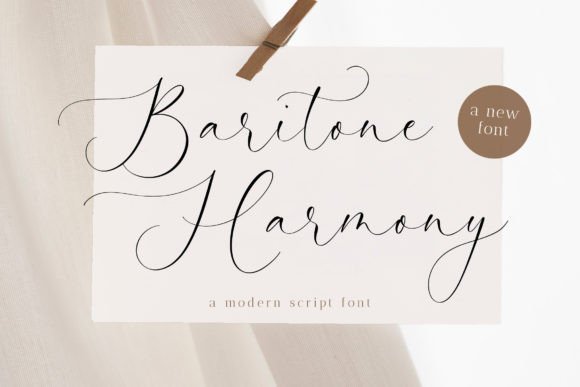
Introducing Baritone Harmony Font: Elevate Your Design with Elegance
Are you on the lookout for a font that exudes sophistication, elegance, and a touch of modernity? Look no further than the Baritone Harmony Font. This exquisite handwritten font is designed to capture the essence of classy calligraphic influences while maintaining a fresh and contemporary feel. In this article, we’ll dive deep into the world of Baritone Harmony, exploring its features, benefits, and uses, and why it’s poised to become your new favorite font.
What Makes Baritone Harmony Font Stand Out?
Baritone Harmony Font is not just another addition to the vast sea of typefaces. It’s a meticulously crafted handwritten font that strikes the perfect balance between traditional calligraphy and modern design sensibilities. Here are some key features that set it apart:
- Classy Calligraphic Influences: The font boasts elegant strokes and fluid connections, reminiscent of high-end calligraphy.
- Contemporary and Fresh: Despite its classic roots, Baritone Harmony has a modern twist that makes it versatile for a wide range of design projects.
- Exquisite Handwritten Style: Each letter is carefully designed to give the font a personal and intimate feel, perfect for projects that require a touch of sophistication.
The Benefits of Using Baritone Harmony in Your Designs
Incorporating Baritone Harmony Font into your projects can have a significant impact on the overall aesthetic and effectiveness of your design. Here are some benefits to consider:
- Elegance and Sophistication: The font’s classy appearance makes it ideal for high-end branding, luxury goods, and premium services.
- Versatility: From wedding invitations and event branding to digital interfaces and marketing materials, Baritone Harmony adapts seamlessly to various design needs.
- Emotional Connection: The handwritten nature of the font creates a personal touch, helping to establish a deeper connection with your audience.
Practical Applications of Baritone Harmony Font
The versatility of Baritone Harmony Font makes it suitable for a myriad of design projects. Here are some practical applications:
- Branding and Logo Design: Use Baritone Harmony to create a lasting impression with a sophisticated logo that speaks to your brand’s values.
- Wedding and Event Planning: The font’s elegant appearance makes it perfect for wedding invitations, save-the-dates, and event branding materials.
- Digital and Print Advertising: Stand out in the crowded digital space or print media with a font that commands attention and exudes professionalism.
- Packaging Design: Add a touch of luxury to your product packaging with Baritone Harmony, elevating your brand’s perceived value.
Tips for Getting the Most Out of Baritone Harmony Font
To maximize the impact of Baritone Harmony in your designs, consider the following tips:
- Pair it Wisely: Combine Baritone Harmony with complementary fonts to create visual interest and hierarchy in your designs.
- Adjust Letter Spacing: Experiment with letter spacing to ensure optimal readability and aesthetic appeal.
- Consider Font Size: Use varying font sizes to emphasize key messages and create a dynamic visual flow.
- Play with Colors: While the font itself is a statement, experimenting with different colors can further enhance its beauty and adaptability.
Baritone Harmony Font is more than just a typeface; it’s a design statement. With its exquisite handwritten style, classy calligraphic influences, and contemporary freshness, it’s poised to elevate your projects to new heights. Whether you’re a designer looking for a sophisticated font to impress clients or a business owner aiming to create a memorable brand identity, Baritone Harmony is an excellent choice. Embrace the elegance, versatility, and emotional appeal of Baritone Harmony Font, and watch your designs transform into captivating visual experiences.